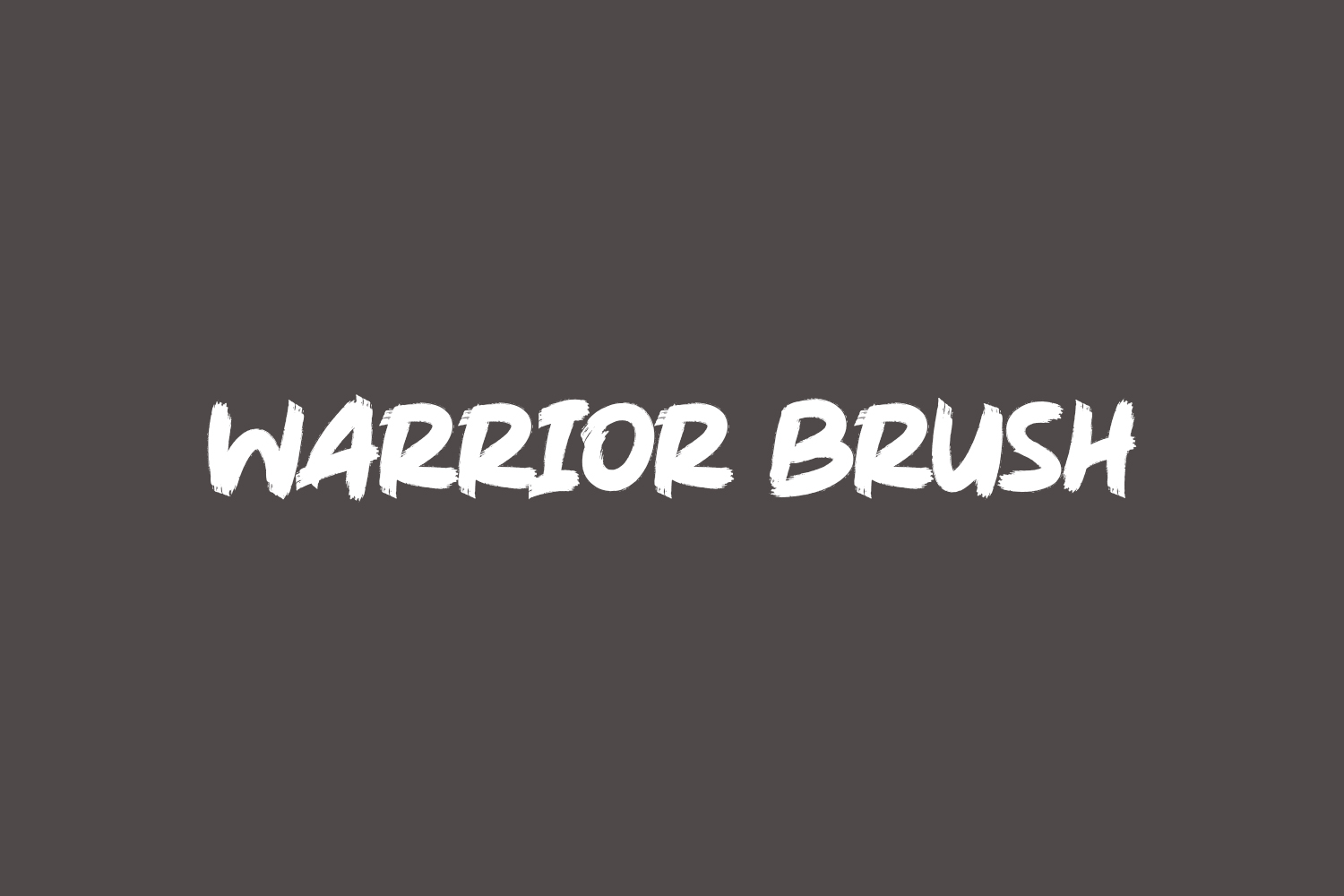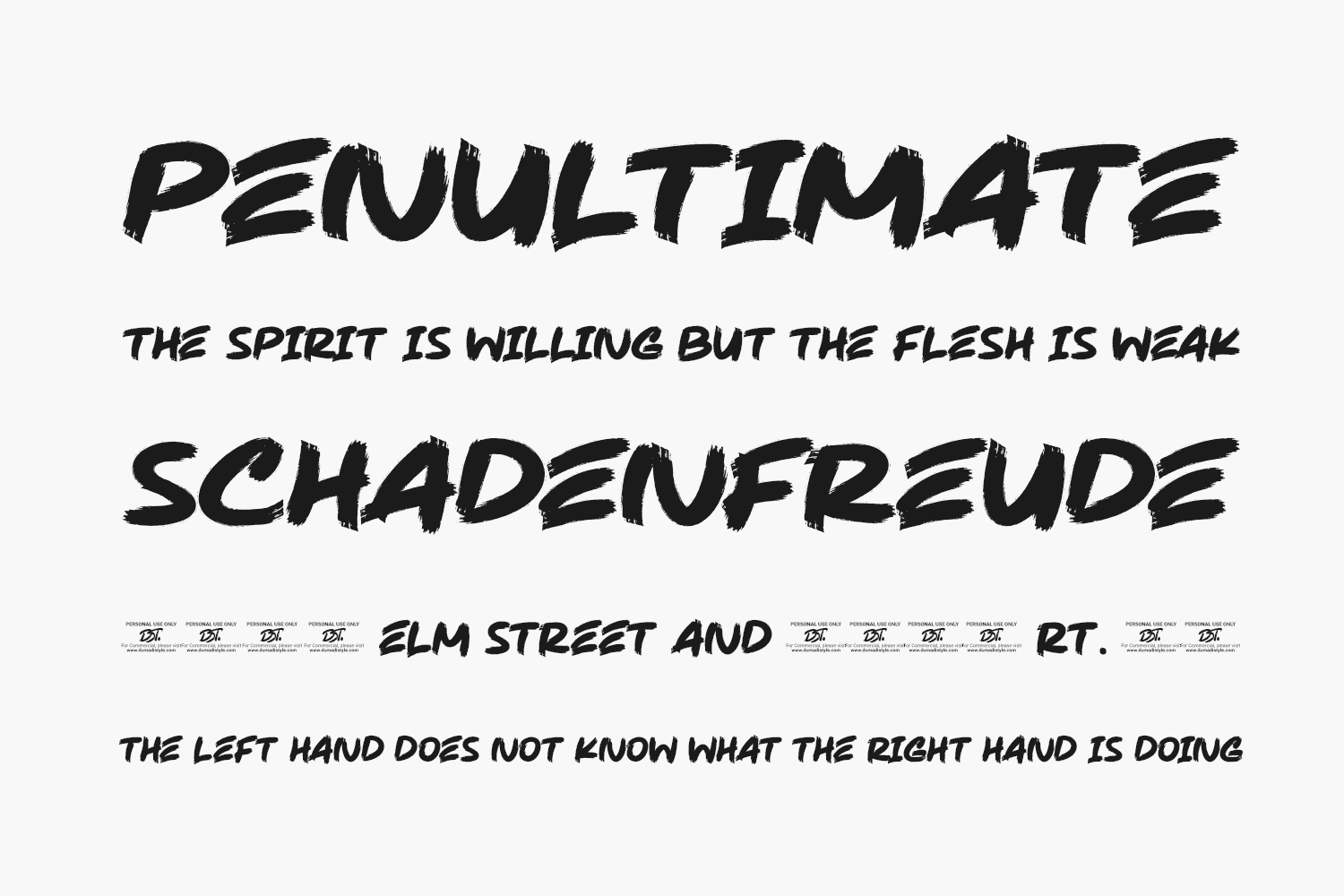
Warrior Brush Free Font is a daring brushed display font. It features an urban vibe and it can be employed in a variety of designs. Have fun with this beautiful font and explore its endless variations. Warrior Brush Free Font was designed by DumadiStyle is a demo and free for personal use only. Please purchase the full version for commercial use.